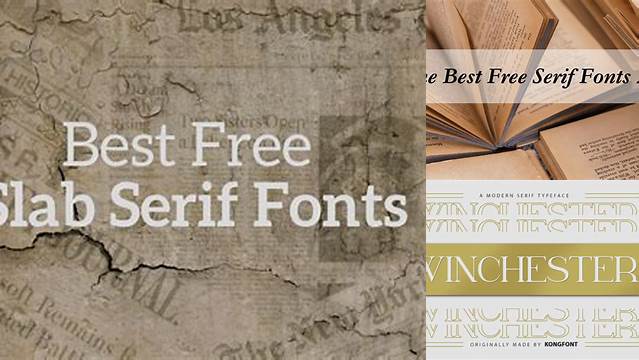
Serif Font Free Download: Your Ultimate Guide
Are you looking for the perfect serif font free download? Look no further! This comprehensive guide dives deep into the world of serif fonts, exploring their history, characteristics, and diverse applications. Whether you're a seasoned designer or just starting out, understanding serif fonts is crucial for effective visual communication. We'll not only point you towards fantastic resources for free downloads but also equip you with the knowledge to choose the right font for your projects.
What are Serif Fonts?
Serif fonts are characterized by small decorative strokes, called serifs, at the end of each character's main strokes. These serifs are the defining feature that distinguishes them from sans-serif fonts, which lack these embellishments. The presence of serifs impacts readability, visual appeal, and the overall tone of a design. Historically, serif fonts have been associated with traditional printing and formal documents, conveying a sense of authority, elegance, and trustworthiness. However, modern interpretations and digital rendering have broadened their application, making them suitable for a wide range of projects.
The origin of serif fonts can be traced back to ancient Rome. Stone carvers, when creating inscriptions, added these small strokes to neaten the ends of the letters and improve their legibility on stone surfaces. These serifs helped to define the letterforms and prevent the stone from chipping at the edges. Over time, this practical technique evolved into an aesthetic element, becoming a hallmark of formal writing and printing. As printing technology advanced, serif fonts were adopted and refined, becoming the standard for books, newspapers, and other printed materials. The consistent use of serifs in these applications established a strong association between serif fonts and traditional media.
Today, serif fonts remain a popular choice for a wide variety of design projects. While they are still frequently used in print, their presence has also expanded into the digital realm. The key to choosing the right serif font lies in understanding its specific characteristics and how it aligns with the overall message and brand identity. Different serif fonts evoke different emotions and associations. For example, a classic serif like Times New Roman might be ideal for a formal document, while a more contemporary serif like Playfair Display could be perfect for a magazine headline. Designers carefully consider the weight, width, and overall style of the serif when making their selection.
Why Use Serif Fonts?
Serif fonts offer several advantages that make them a popular choice for designers. One of the main benefits is enhanced readability, especially in long blocks of text. The serifs create a visual connection between letters, guiding the reader's eye along the line and improving reading speed and comprehension. This is particularly important for printed materials like books and newspapers, where readers spend extended periods engaging with the text. The presence of serifs helps to reduce eye strain and makes the reading experience more comfortable.
Beyond readability, serif fonts also convey a sense of tradition, authority, and elegance. They are often associated with established institutions, historical documents, and high-end brands. Using a serif font can lend credibility and sophistication to a design, making it suitable for projects that require a formal or trustworthy tone. For example, law firms, universities, and luxury brands often utilize serif fonts in their logos and marketing materials to project an image of professionalism and reliability.
The versatility of serif fonts is another compelling reason to use them. While they are traditionally associated with print, serif fonts can also be effectively used in digital designs. With the advent of high-resolution screens, the legibility issues that once plagued serif fonts in digital environments have largely been resolved. This has opened up new possibilities for using serif fonts in website design, e-books, and other digital media. Many designers now combine serif and sans-serif fonts to create visually appealing and balanced designs, using serif fonts for headings and body text and sans-serif fonts for navigation and other interface elements.
Moreover, serif fonts come in a wide range of styles and weights, offering designers a plethora of options to choose from. From classic serifs like Times New Roman and Garamond to more modern and decorative serifs like Playfair Display and Merriweather, there is a serif font to suit every project. Designers can experiment with different serif fonts to find the perfect match for their brand identity and design aesthetic. The subtle nuances in serif design can have a significant impact on the overall look and feel of a project, making it important to carefully consider the available options.
Where to Find Serif Font Free Downloads
Finding high-quality serif font free downloads can be a challenge, but thankfully, there are many excellent resources available online. However, when sourcing fonts for free, it's critical to understand the licensing terms. Not all "free" fonts are truly free for commercial use. Many come with restrictions, such as requiring attribution or prohibiting modification. Always double-check the license before using a font in a project to avoid potential legal issues.
Google Fonts: Google Fonts is a fantastic resource for free, open-source fonts. Their collection includes a wide variety of serif fonts suitable for both print and web design. All fonts on Google Fonts are licensed under the SIL Open Font License, which allows for free use, modification, and distribution, even for commercial purposes. Some popular serif fonts available on Google Fonts include Roboto Serif, Montserrat, and Lora. The ease of use and clear licensing make Google Fonts a top choice for designers seeking free fonts.
Font Squirrel: Font Squirrel is another excellent website that offers a curated selection of free fonts. They focus on providing fonts that are 100% free for commercial use, making it a reliable source for designers. Font Squirrel also offers a font identifier tool that can help you identify a font from an image. This can be useful if you need to find a similar font to one you've seen elsewhere. Their serif font collection includes classics and modern designs.
DaFont: DaFont is a popular website that offers a vast collection of free fonts. However, it's important to note that the licensing terms vary from font to font on DaFont. Some fonts are free for personal use only, while others are free for commercial use. Always check the license before using a font from DaFont in a commercial project. Despite the licensing variations, DaFont can be a great resource for finding unique and creative serif fonts. They have a comprehensive selection.
MyFonts Free Fonts: MyFonts, a well-known commercial font marketplace, also offers a selection of free fonts. These fonts are typically offered as promotional items or as part of a larger font family. The quality of the free fonts on MyFonts is generally high, making it a worthwhile resource to explore. Keep an eye out for their occasional free font promotions. They often include high-quality serif font options.
Popular Serif Fonts You Can Download for Free
Let's explore some popular serif fonts that you can download for free and use in your projects. These fonts have been selected for their versatility, readability, and aesthetic appeal.
Roboto Serif: As part of the Roboto family, Roboto Serif maintains a modern and approachable feel while incorporating classic serif elements. It's highly readable in both print and digital formats, making it a great choice for body text, headlines, and UI elements. It's a popular choice from Google Fonts.
Lora: Lora is a well-balanced serif font with roots in calligraphy. Its contemporary feel makes it well-suited for body text in online magazines and blogs. The overall aesthetic of Lora aims to please the eye when read in print or on screen. It is available on Google Fonts.
Playfair Display: Playfair Display is a transitional serif font designed by Claus Eggers Sørensen. Its high contrast and delicate serifs make it ideal for headlines and titles. It exudes elegance and sophistication. It works best for larger text sizes.
Merriweather: Merriweather was designed specifically for on-screen readability. Its slightly condensed letterforms and sturdy serifs make it a great choice for body text on websites and e-books. It is a favorite for digital publishing.
How to Choose the Right Serif Font
Choosing the right serif font can significantly impact the success of your design project. Here are some key factors to consider when making your selection:
Readability: Ensure the font is legible, especially for body text. Consider the font's x-height (the height of the lowercase letters), character spacing, and serif design. Fonts with larger x-heights and wider spacing tend to be more readable.
Purpose: Consider the purpose of your design. Is it for a formal document, a website, or a marketing campaign? Choose a font that aligns with the overall tone and message of your project. Classic serifs are great for formal documents, while modern serifs can work well for websites and marketing materials.
Brand Identity: Select a font that complements your brand identity. The font should reflect the values and personality of your brand. Consider the font's weight, style, and overall aesthetic.
Pairing: Think about how the serif font will pair with other fonts in your design. It's often a good idea to pair a serif font with a sans-serif font to create visual contrast and balance. Ensure the fonts work well together and don't clash.
Licensing: Always check the font's licensing terms before using it in a project. Ensure you have the necessary permissions to use the font for your intended purpose, especially for commercial projects. Pay close attention to any restrictions on modification or distribution.